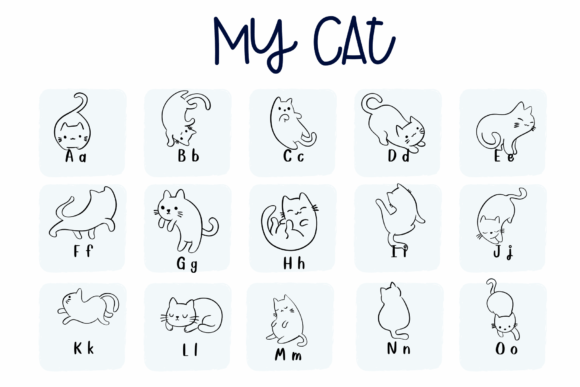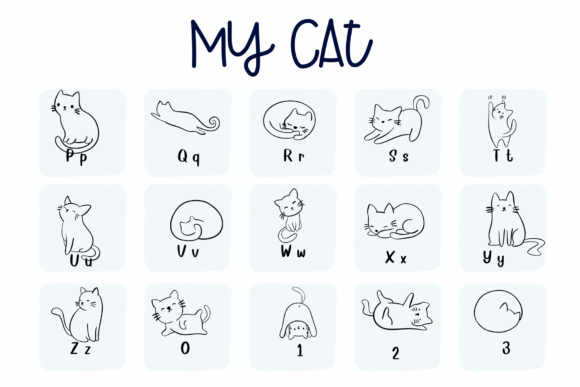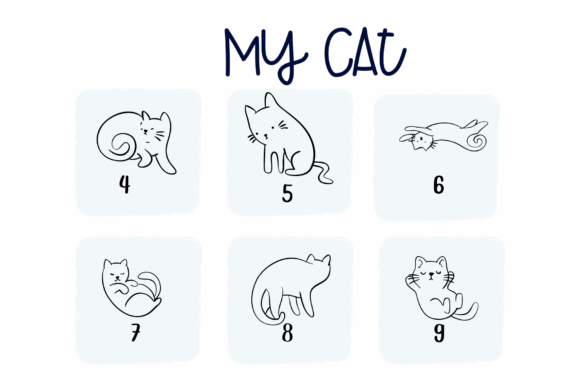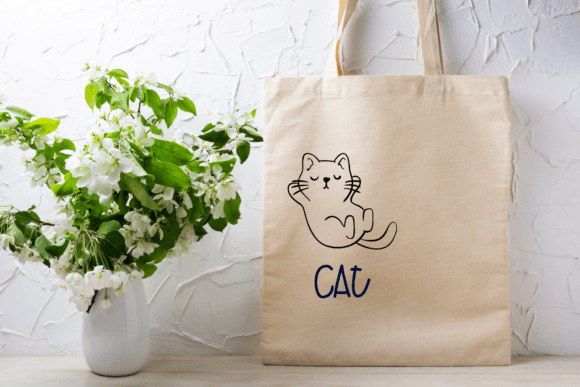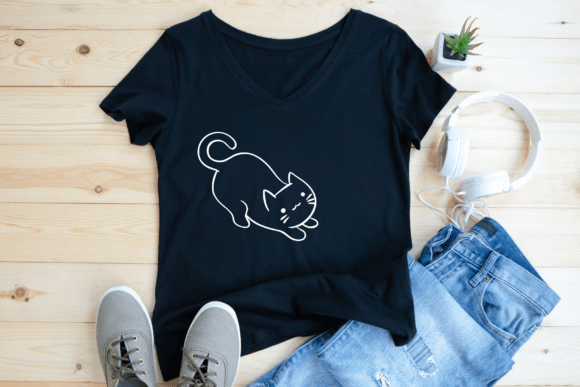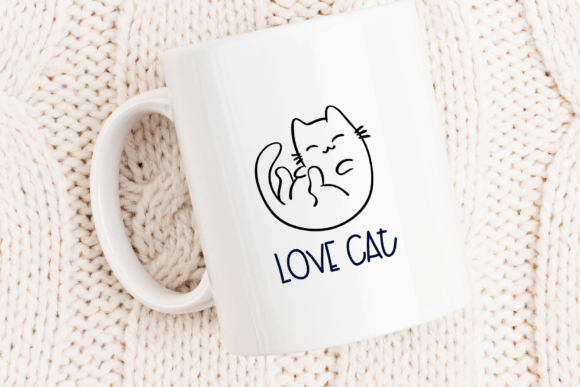
Introduction to My Cat Font
My Cat is a fun and cute dingbat font featuring playful cat designs.
Each letter and number is a different adorable cat illustration, perfect for adding a touch of whimsy to your projects .